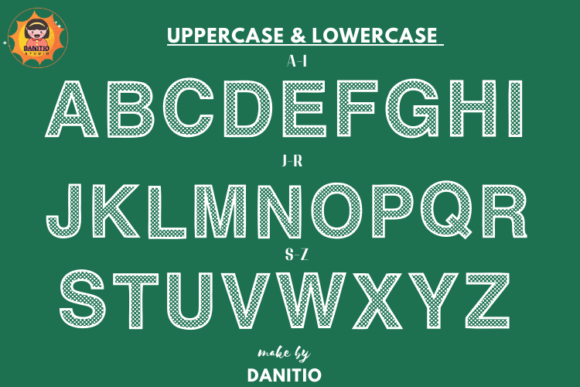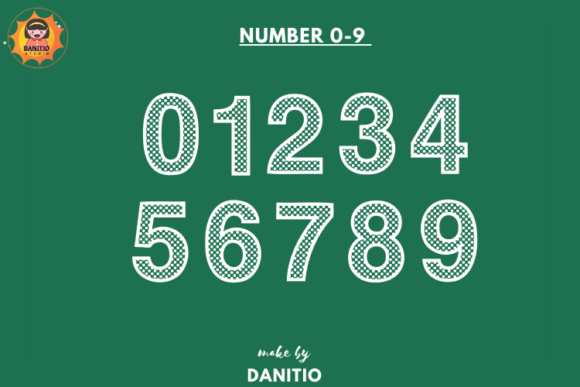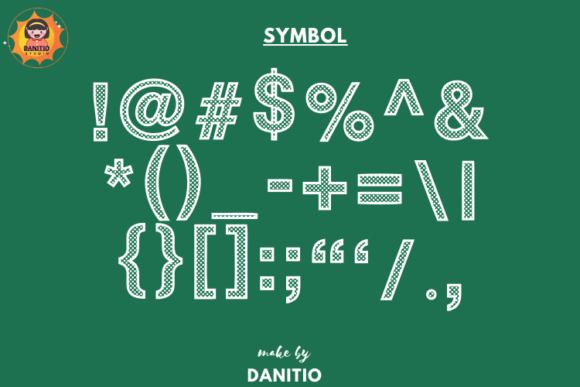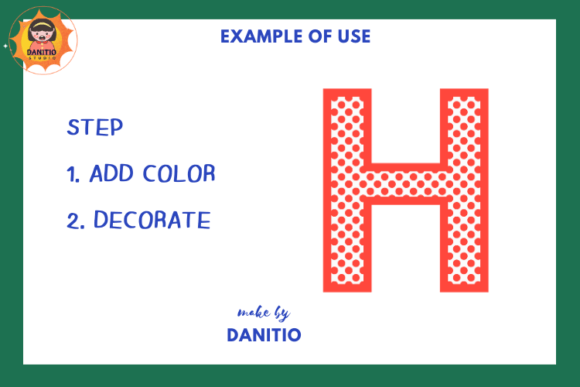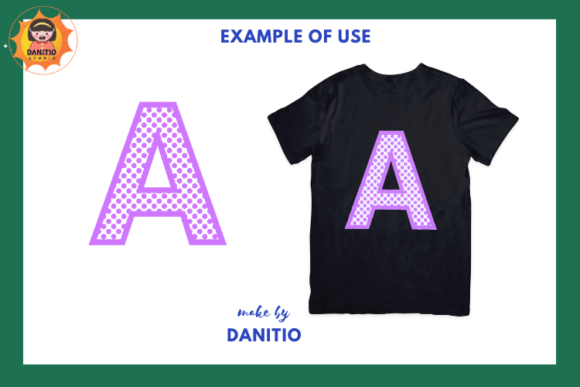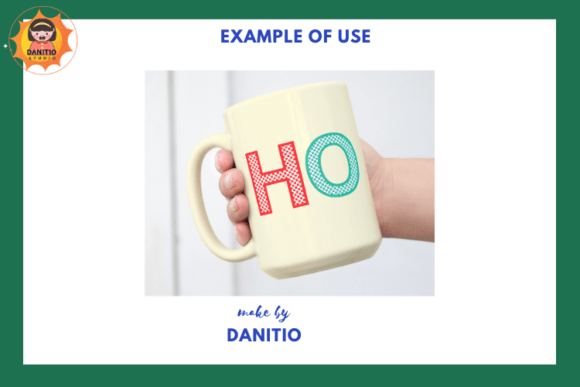
Dot Dot Font: The Cute and Playful Decorative Font for Your Designs
Are you looking for a font that can add a touch of cuteness and playfulness to your designs? Look no further than the Dot Dot Font! This decorative font features a unique dot pattern that is sure to make your designs stand out. In this article, we’ll explore the features and benefits of the Dot Dot Font, and how you can use it to elevate your designs.
What is Dot Dot Font?
Dot Dot Font is a decorative font that features a distinctive dot pattern. The font is designed to be cute, funny, and cool, making it perfect for a wide range of design projects. Whether you’re creating digital items, presentations, greeting cards, or physical products like t-shirts, mugs, and tote bags, the Dot Dot Font is a great choice.
Features of Dot Dot Font
The Dot Dot Font has several features that make it a great choice for designers and crafters. Some of its key features include:
- Cute and Playful Design: The Dot Dot Font features a unique dot pattern that gives it a cute and playful look.
- Versatile: The font is suitable for a wide range of design projects, from digital items to physical products.
- Easy to Read: Despite its decorative nature, the Dot Dot Font is easy to read, making it perfect for use in body text.
- Customizable: The font can be customized to fit your design needs, including adjusting the size, color, and style.
Benefits of Using Dot Dot Font
There are several benefits to using the Dot Dot Font in your designs. Some of the benefits include:
- Adds Visual Interest: The unique dot pattern of the Dot Dot Font adds visual interest to your designs, making them more engaging and attention-grabbing.
- Conveys Playfulness: The font’s playful design conveys a sense of fun and playfulness, making it perfect for designs that need to be lighthearted and humorous.
- Enhances Creativity: The Dot Dot Font’s distinctive style can help to enhance your creativity and inspire new ideas.
Using Dot Dot Font in Your Designs
The Dot Dot Font is a versatile font that can be used in a wide range of design projects. Here are some ideas for using the font:
- Digital Items: Use the Dot Dot Font to create digital items like printable art, planners, and journals.
- Presentations: Add a touch of playfulness to your presentations with the Dot Dot Font.
- Greeting Cards: Use the font to create cute and playful greeting cards for special occasions.
- Physical Products: The Dot Dot Font is perfect for use on physical products like t-shirts, mugs, tote bags, and more.
Tips for Getting the Most Out of Dot Dot Font
Here are some tips for getting the most out of the Dot Dot Font:
- Experiment with Different Sizes: Try out different font sizes to see how the Dot Dot Font looks in different contexts.
- Pair with Other Fonts: Pair the Dot Dot Font with other fonts to create a unique and interesting design.
- Use in Combination with Images: Use the font in combination with images to add visual interest to your designs.
The Dot Dot Font is a cute and playful decorative font that is perfect for designers and crafters looking to add a touch of fun and whimsy to their designs. With its unique dot pattern and versatile design, the font is suitable for a wide range of design projects. Whether you’re creating digital items, presentations, greeting cards, or physical products, the Dot Dot Font is a great choice. So why not give it a try and see how it can enhance your designs?